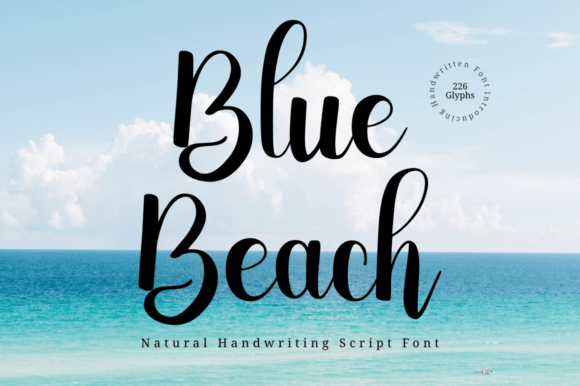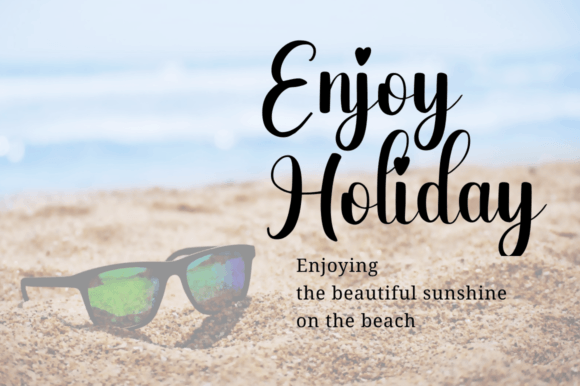
Blue Beach Font
Blue Beach is a beautiful and natural handwritten font perfect for logotypes, headlines, corporate identity, brand identity, apparel industry, posters, music, movies, games, magazines, books, comics, cartoons, YouTube, Instagram, websites, or any of your creative design projects.